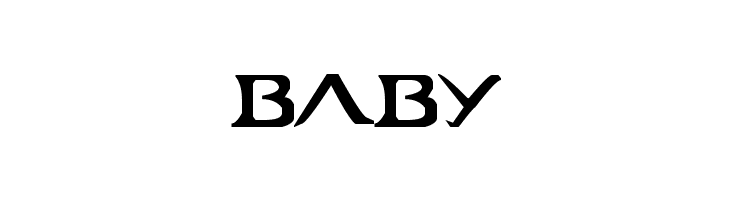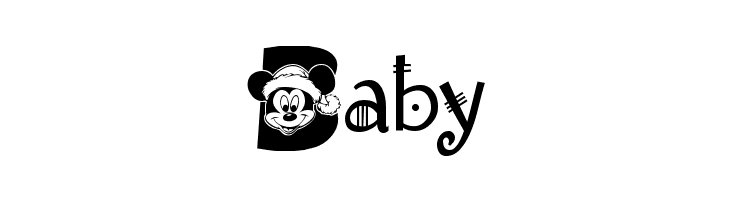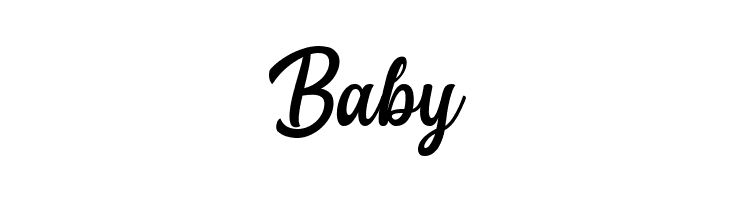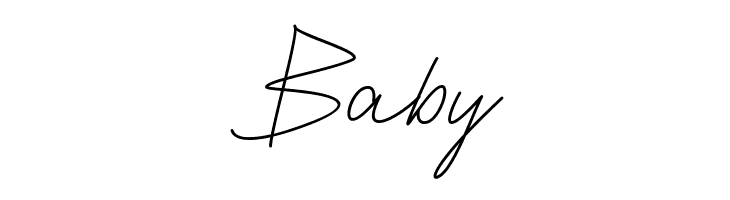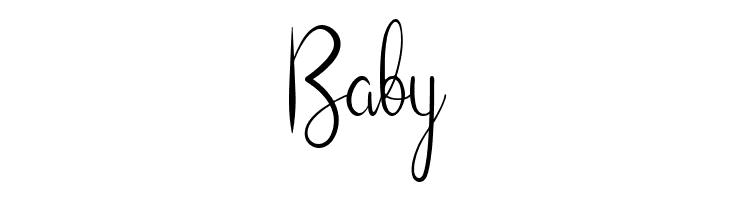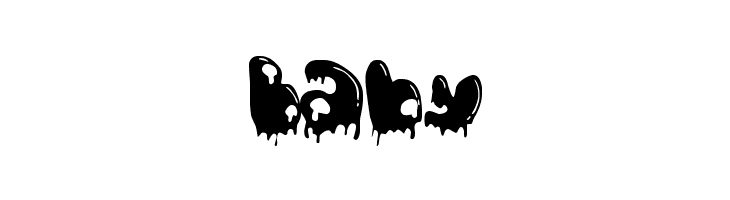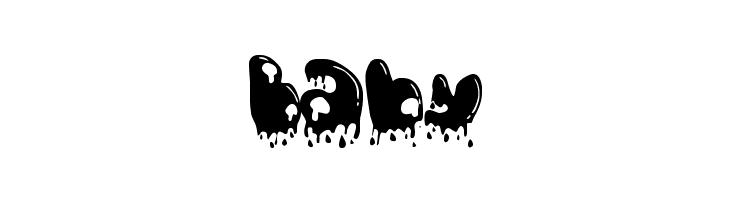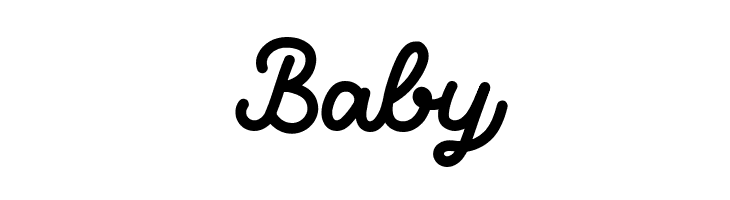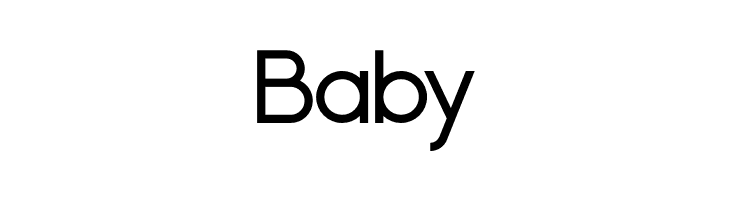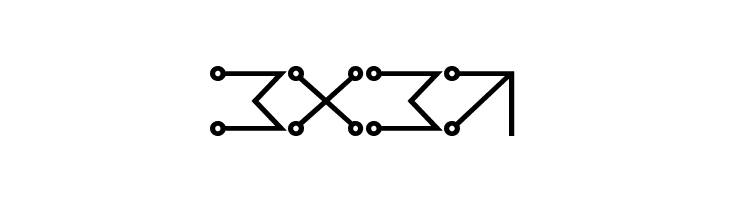
A bold, playful font with cartoonish, uneven strokes and quirky cutouts.
A bold, playful handwritten font with a lively and energetic style.
An elegant serif typeface with tall, slender letterforms and moderate contrast.
A bold, brush-style font with a hand-drawn, energetic appearance.
A geometric, angular font with a futuristic and bold design.
A sophisticated cursive script with decorative swirls and elegant curves.
An elegant script font with flowing, decorative letterforms.
A playful, bubble-like font with bold, rounded characters and a three-dimensional outline.
A playful, bold, and hand-drawn font with rounded edges.
A playful, bold font with a hand-drawn, rounded style.
A playful, hand-drawn font with a sketch-like, dimensional appearance.
A tall, narrow, and modern font with high contrast and minimalistic style.
A bold, cursive script font with a lively and connected style.
A lively and expressive handwritten font with dynamic strokes and artistic flair.
A bold, decorative font with playful, rounded characters resembling abstract shapes.
A bold, flowing script font with elegant, hand-drawn curves.
A bold, angular font with a futuristic and dynamic design.
An elegant, flowing script font with a calligraphic style.
A handcrafted, calligraphic font with elegant, flowing curves and artistic flair.
A bold, playful handwritten font with rounded, irregular characters.
A lively and elegant handwritten script font with bold uppercase and smooth lowercase letters.
A bold, dripping font with a spooky, wax-like appearance.
A playful, bold handwritten font with rounded edges and a whimsical style.
A playful, cursive script font with flowing, connected letterforms.
A modern, geometric font with smooth curves and sharp angles.
A bold, distressed font with a scratched, edgy appearance.